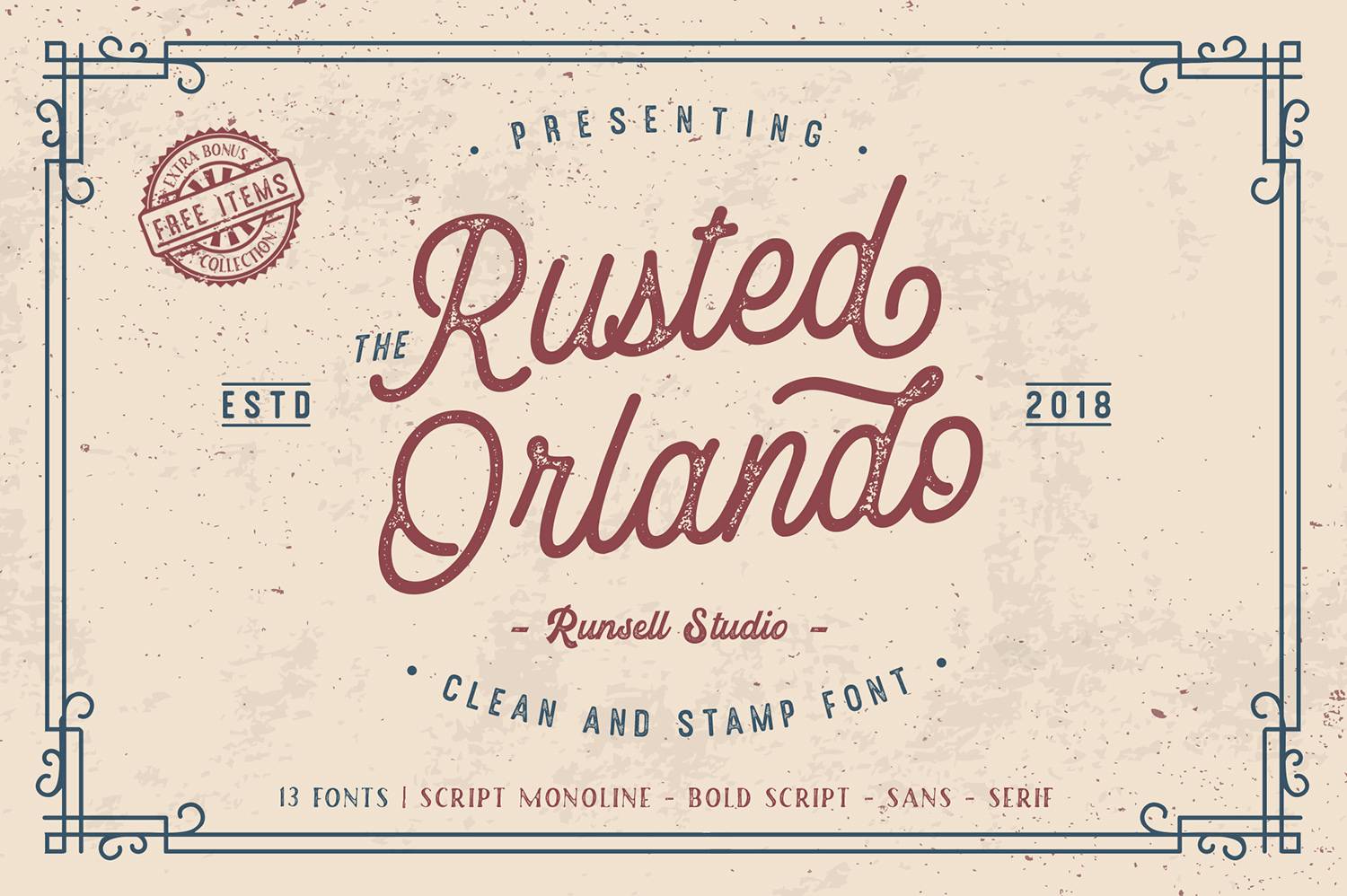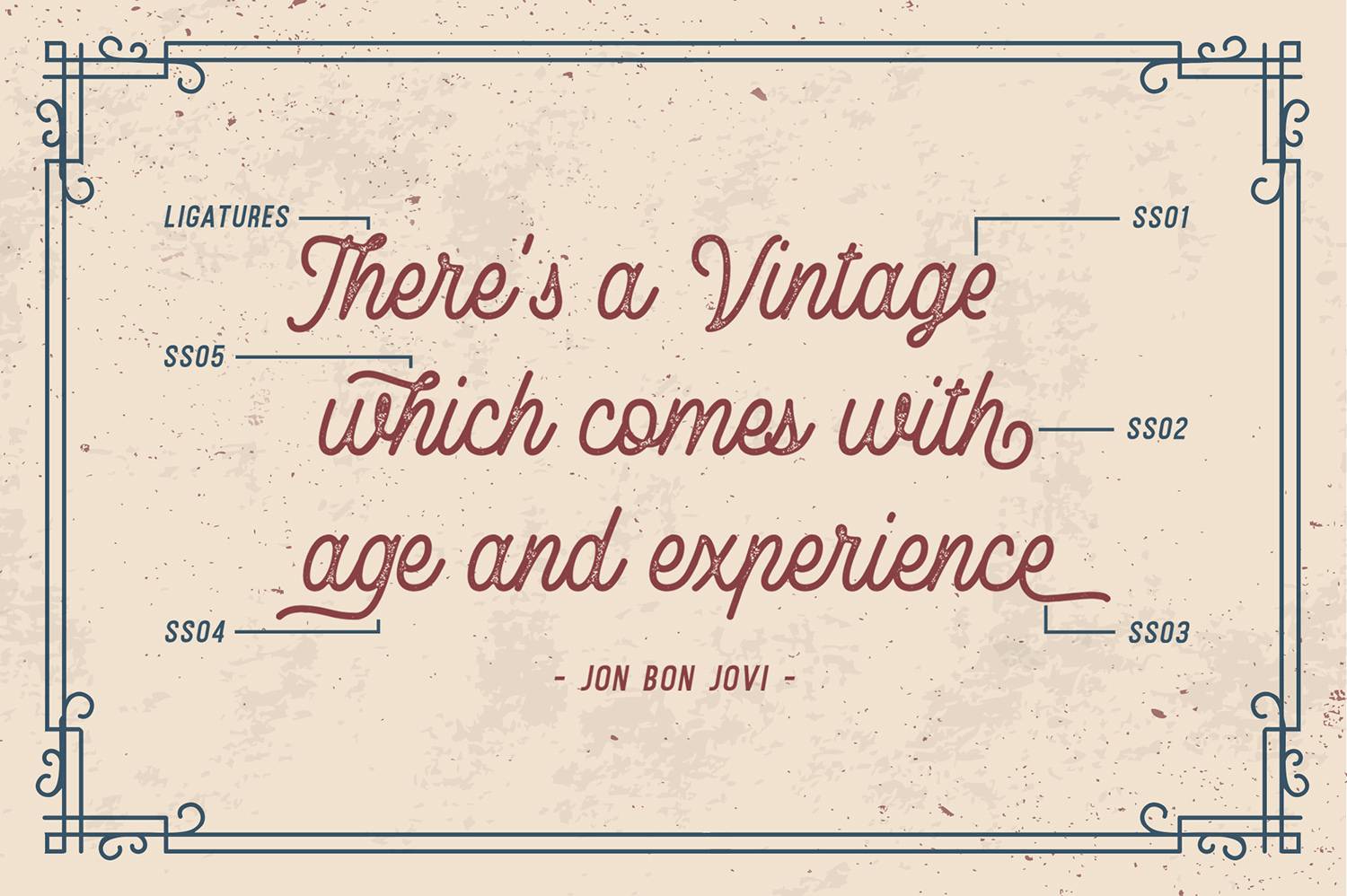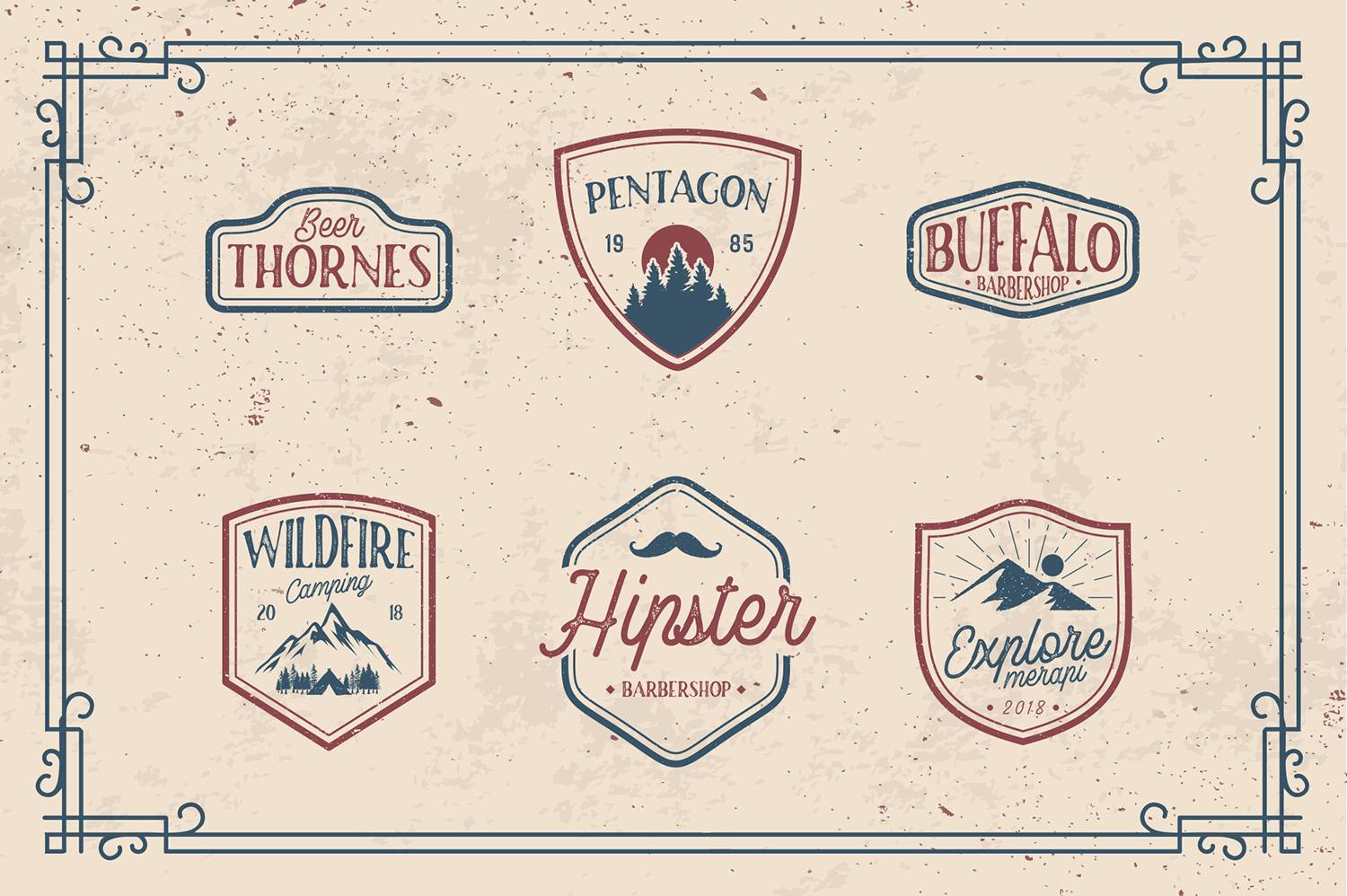
Rusted Orlando is a graceful script font featuring elegant, flowing letterforms with a consistent light weight and smooth curves, giving it a delicate and refined appearance. Its connected lowercase letters and distinctive uppercase shapes make it ideal for projects that want to convey charm and sophistication, such as invitations, branding, and stylish editorial designs. This font works best in designs that seek a personal, handwritten feel combined with classic elegance.
Rusted Orlando Font
About Rusted Orlando Font